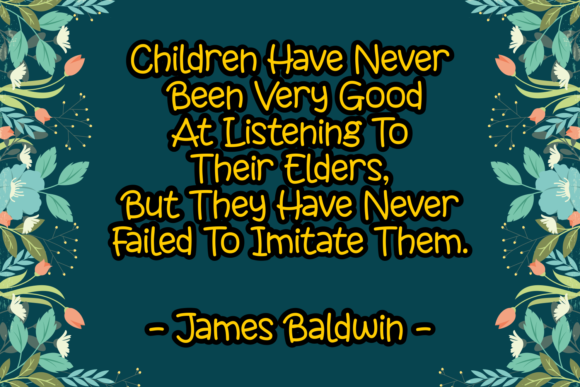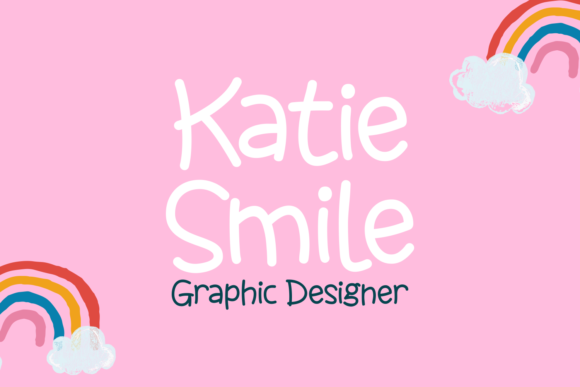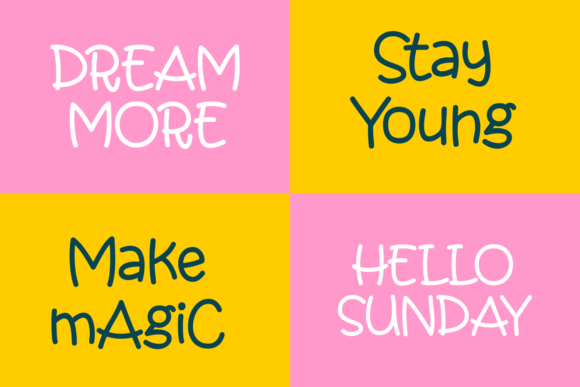
Introduction to Childlike Everyday Font
Remember the joy of scribbling in a notebook as a child, watching the words and letters flow onto the page? For many of us, those carefree moments sparked a love for creative expression that has only grown stronger with time. Today, as designers and makers, we’re fortunate to have access to a vast array of high-quality design resources that can bring that same sense of wonder to our projects.
One such treasure is the Childlike Everyday Font, a charming and simple handwritten font that’s perfect for adding a touch of whimsy to any creative project. Whether you’re crafting digital designs, presentations, or handmade greeting cards, this font has the potential to become your go-to companion, no matter the occasion.
What makes the Childlike Everyday Font so valuable for designers is its versatility and ease of use. With a transparent background, it’s simple to layer and combine with other design elements, making it an ideal choice for a wide range of creative projects.
Key Features of Childlike Everyday Font
- High-quality design resource suitable for various creative projects, including children’s books, educational materials, and advertising campaigns.
- Unique childlike aesthetic, making it perfect for designs that require a playful and innocent tone.
- Designed to be versatile, with a wide range of applications, from titles and headings to body text and captions.
Honest Review: Childlike Everyday Font
I recently had the chance to work with the Childlike Everyday Font, and I must say, it’s been a delightful experience. This font is a high-quality design resource that’s perfect for any creative project that requires a playful touch.
What works well: ✨ The Childlike Everyday Font has a very transparent background, making it easy to overlay text on top of images or other design elements. The font itself is highly customizable, allowing you to adjust the size, color, and style to suit your needs.
- Customizable font styles
Any limitations: ⚠️ While the Childlike Everyday Font is a great choice for many projects, it may not be the best option for formal or professional designs. The font’s playful nature may not be suitable for all audiences.
Tips for Getting the Most Out of Childlike Everyday Font
Use the Childlike Everyday Font in combination with other design elements to create a unique and engaging visual identity. Experiment with different font sizes, colors, and styles to find the perfect balance for your creative project. This font is a great resource for designers looking to add a playful and whimsical touch to their work.
The Childlike Everyday Font is perfect for a variety of creative projects, including children’s books, educational materials, and marketing materials. Its high-quality design and transparent background make it a versatile resource for designers of all levels.